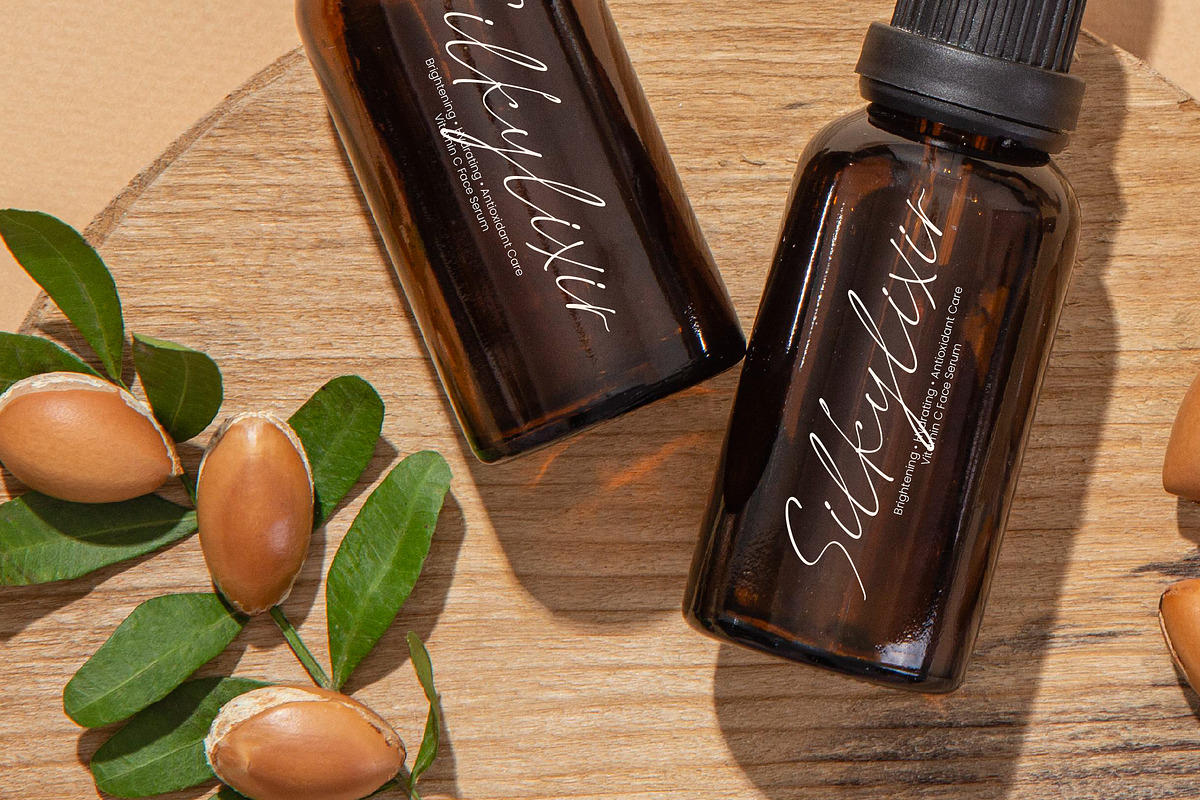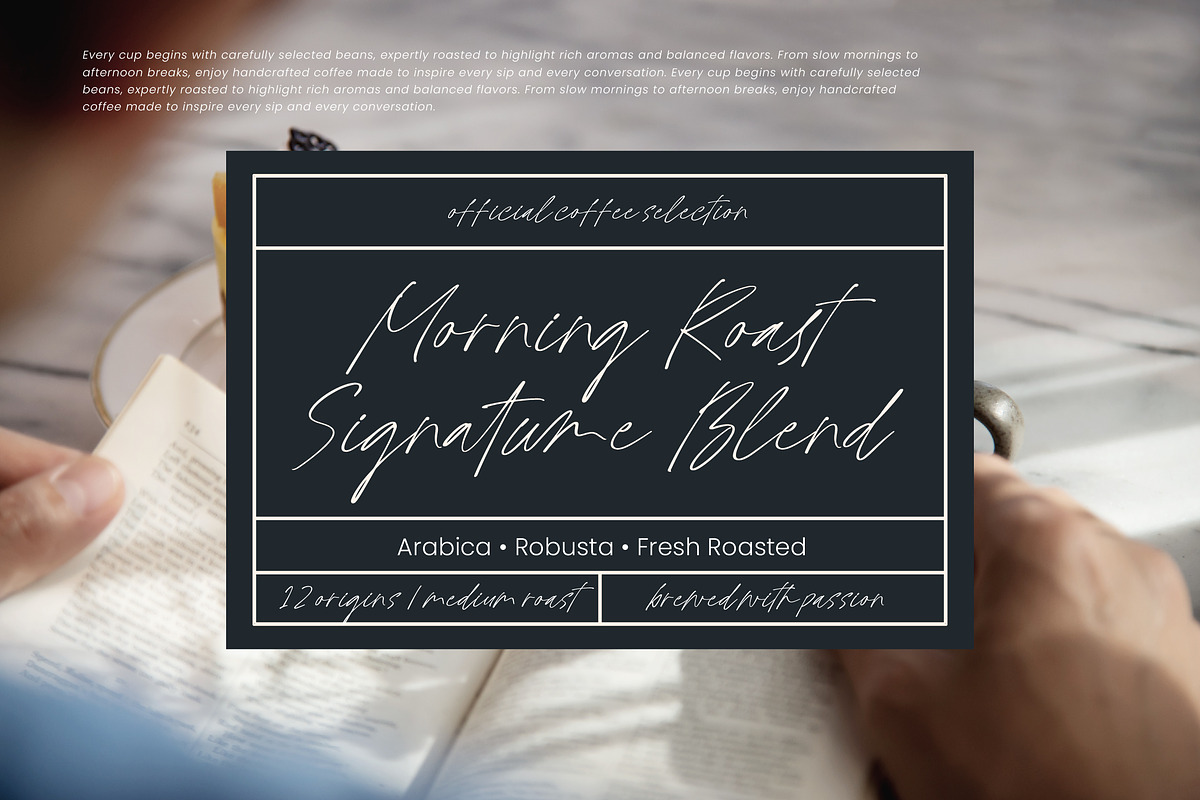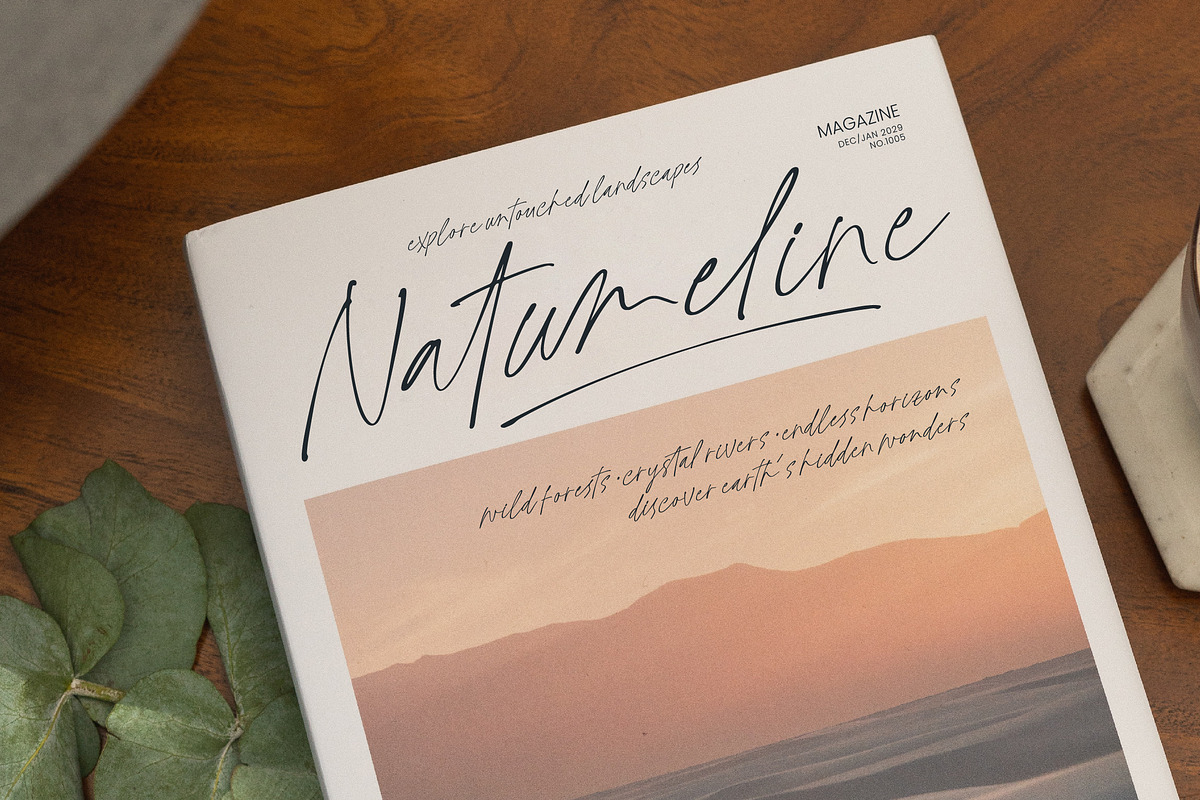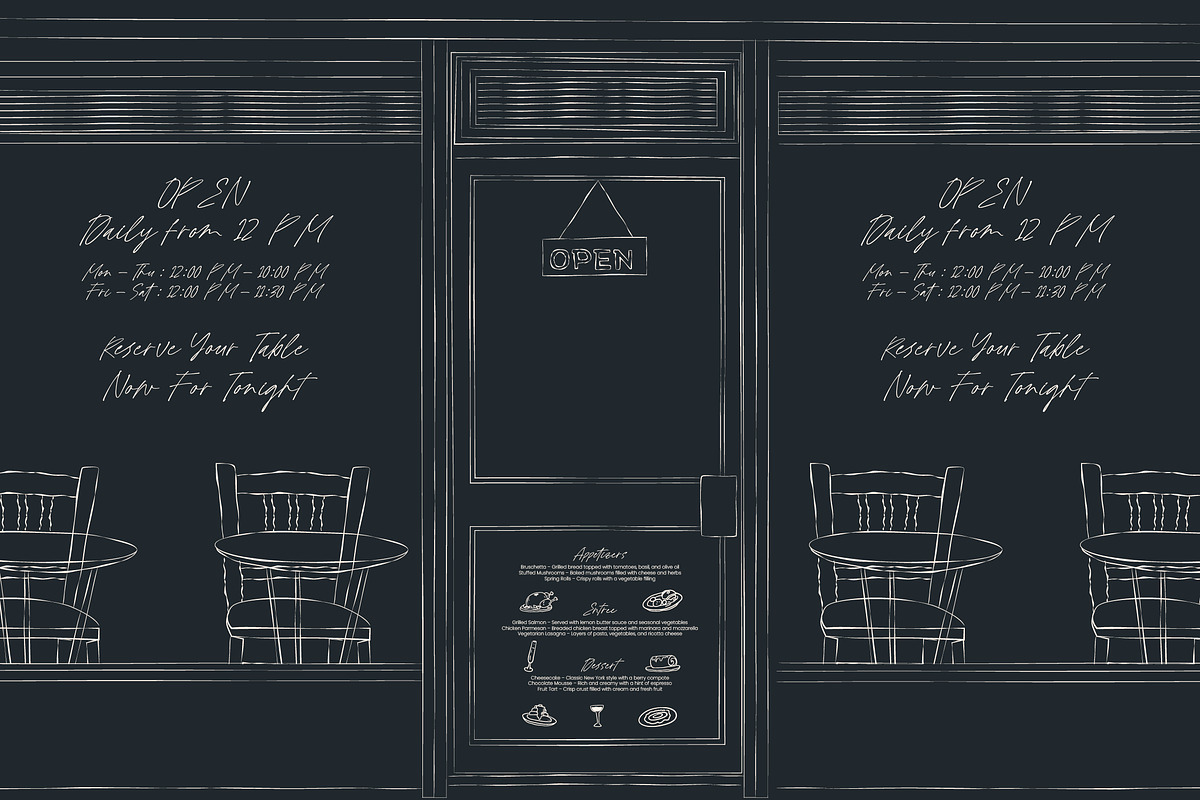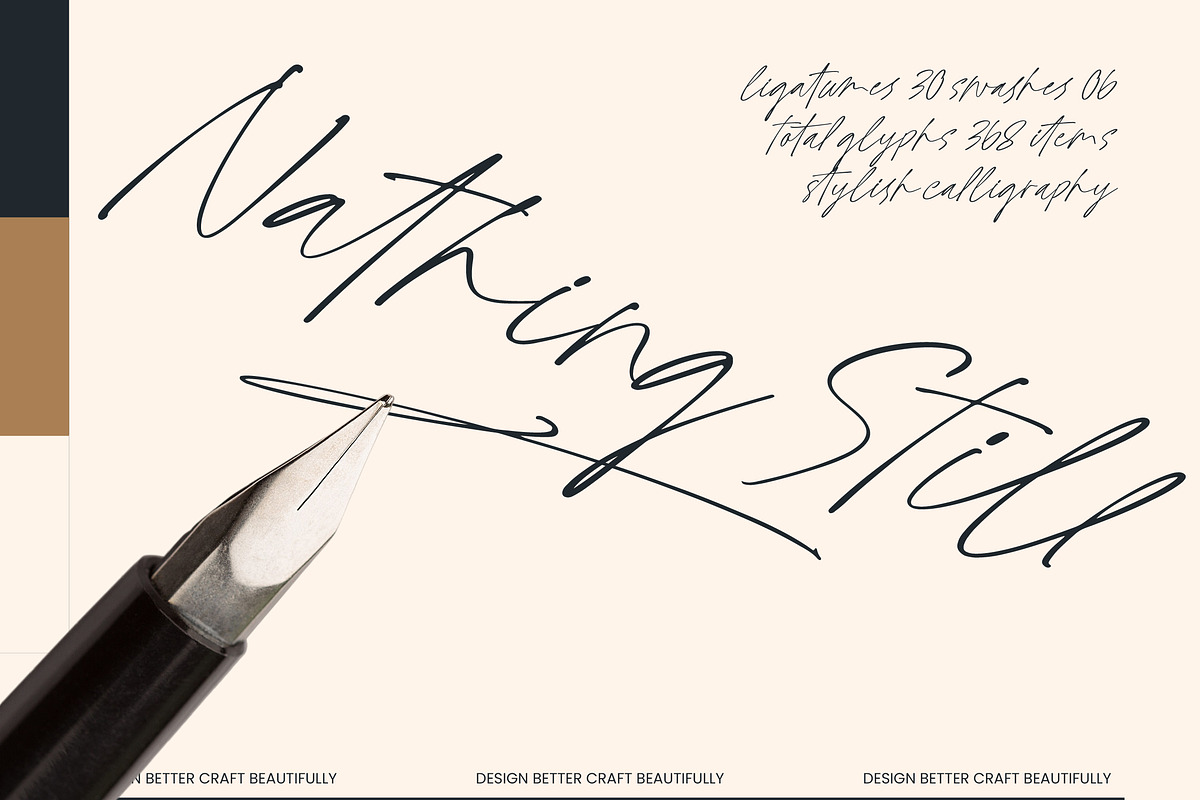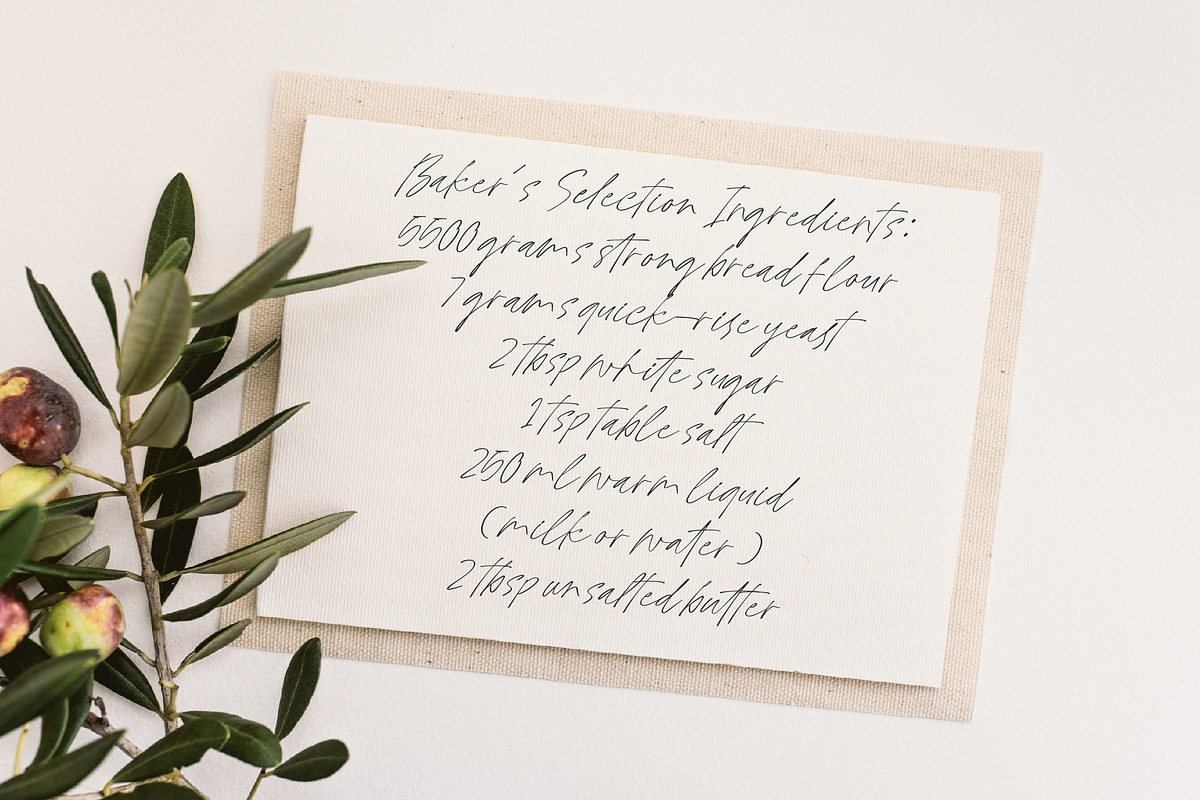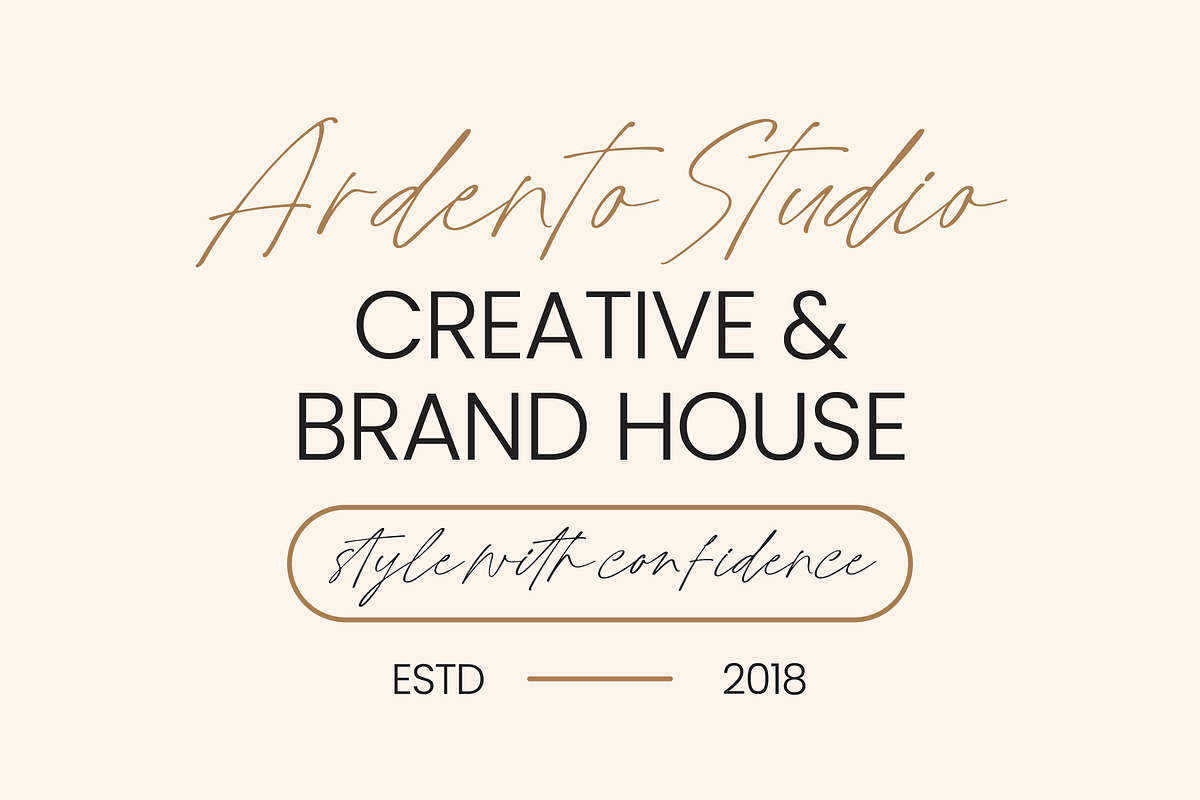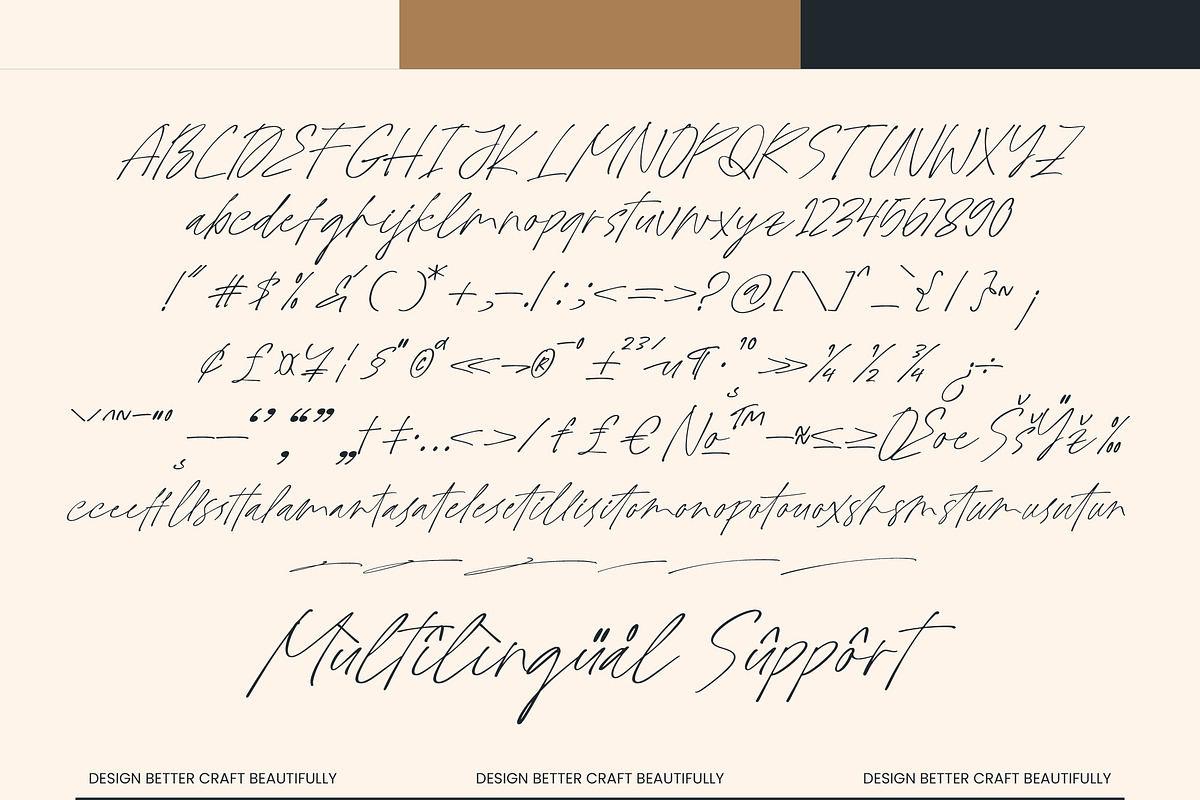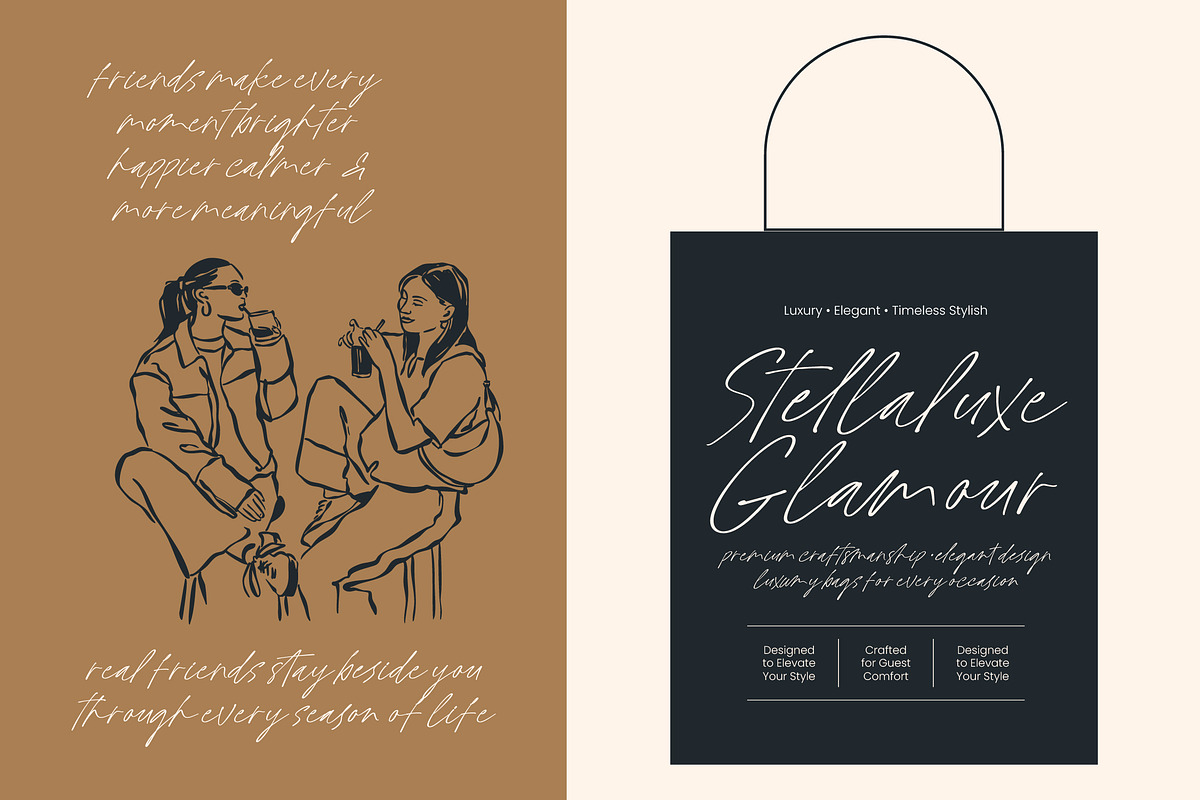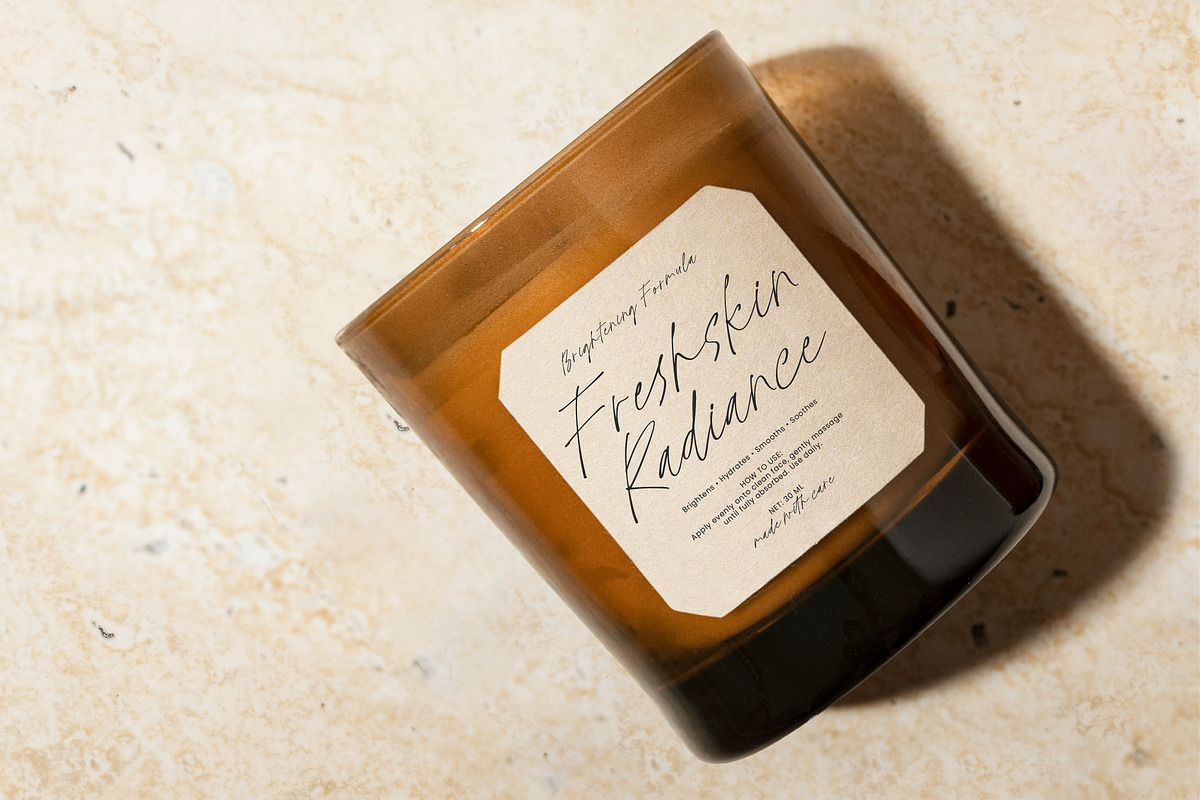
Nathing Still Stylish Calligraphy
Nathing Still - Stylish Calligraphy
Elevate your creative vision with the timeless elegance of Nathing Still - Stylish Calligraphy, a font designed to bring a touch of sophisticated artistry to every project. This premium script typeface captures the rhythmic beauty of handwritten ink, offering a fluid movement that feels both organic and high-end. Its delicate strokes and graceful transitions make it an essential tool for designers seeking to convey exclusivity and refined taste.
Global reach becomes effortless when you integrate Nathing Still - Stylish Calligraphy into your professional workflow. With its extensive multilingual support, Nathing Still - Stylish Calligraphy adapts seamlessly across global markets, making it incredibly versatile for international projects. Featuring a comprehensive set of 368 glyphs, this font ensures that your message remains consistent and visually stunning regardless of the geographic target or language requirements.
Transform your brand identity through the versatility of Nathing Still - Stylish Calligraphy, which serves as the perfect choice for a wide array of upscale applications. It is exceptionally well-suited for luxury branding, bespoke wedding stationery, and high-end product packaging where a personal, signature-style touch is required. From editorial design in fashion magazines to sophisticated logo creation, this typeface provides the visual weight and elegance needed to stand out in a competitive market.
Master the art of typographic excellence by utilizing the specialized features included in Nathing Still - Stylish Calligraphy. With 30 artistic ligatures and 06 custom swashes, you can achieve a truly bespoke aesthetic that mimics the nuances of genuine fine-pen calligraphy. Whether you are crafting modern social media graphics or traditional print media, Nathing Still - Stylish Calligraphy delivers a polished and professional finish that resonates with discerning audiences worldwide.